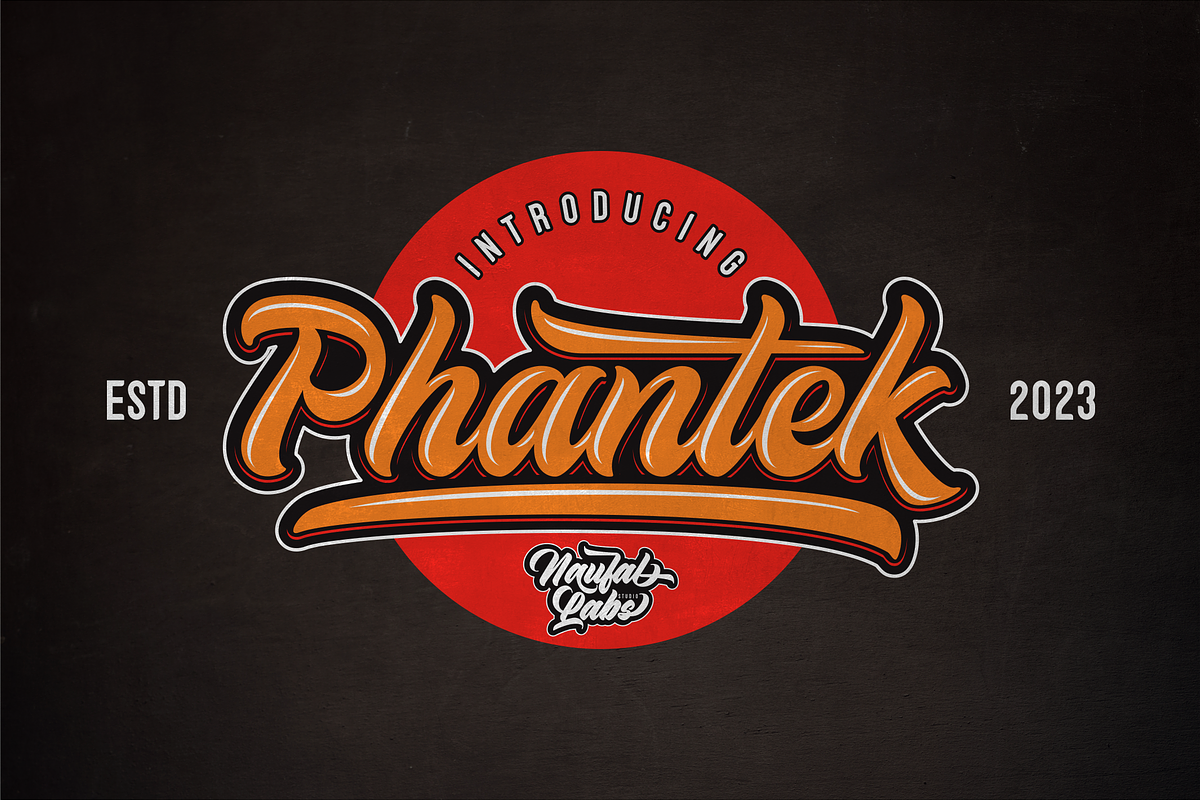
Phantek Script Font Free Download
Phantek Script Font Free Download is an elegant, flowing script typeface designed to bring sophistication and style to your designs. With its smooth curves and graceful letterforms, this font is perfect for wedding invitations, branding, greeting cards, logos, and any project that requires a handwritten, personal touch. It combines beauty and readability, making it suitable for both formal and casual designs.
Using the Phantek Script Font Free Download brings a fluid, organic feel to your creative work. Whether you're creating a custom logo, crafting an inspirational quote, or designing an elegant event invitation, this font adds a touch of charm and sophistication.